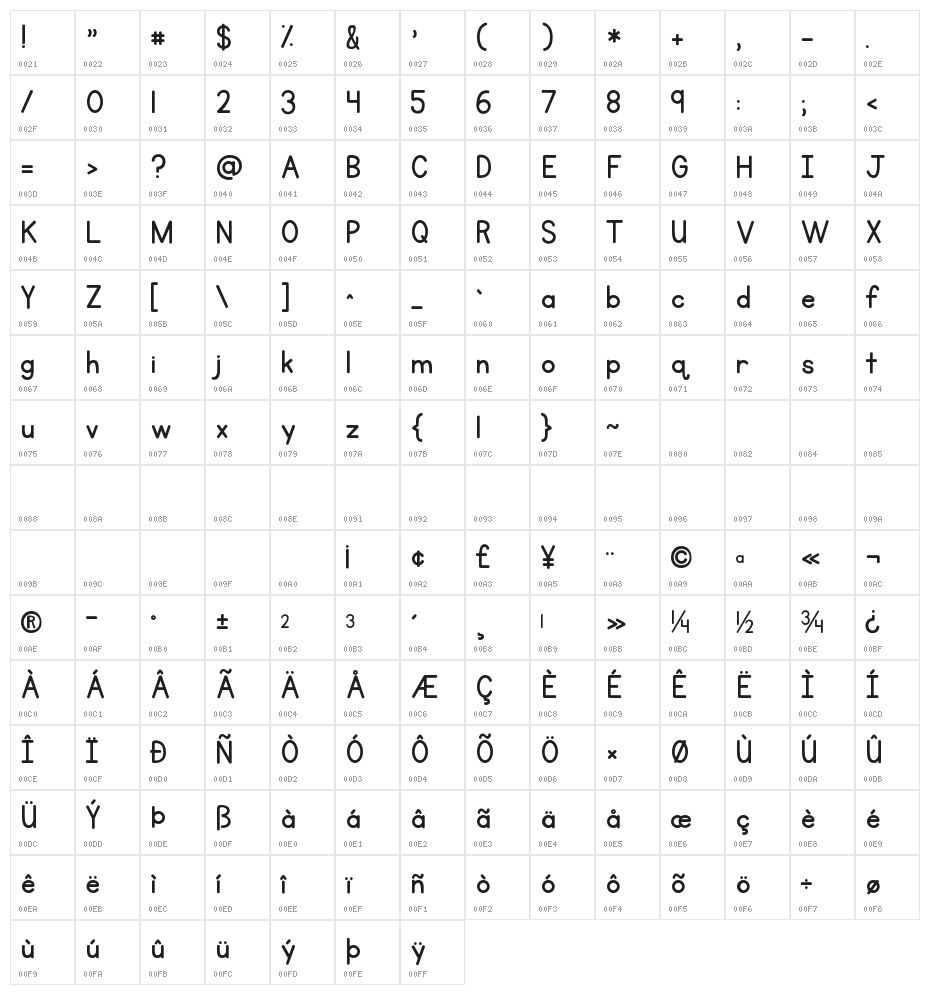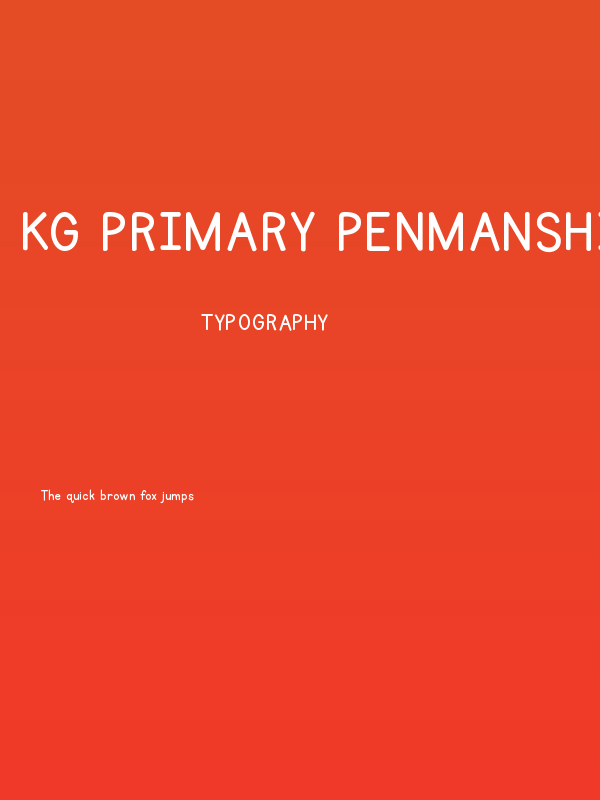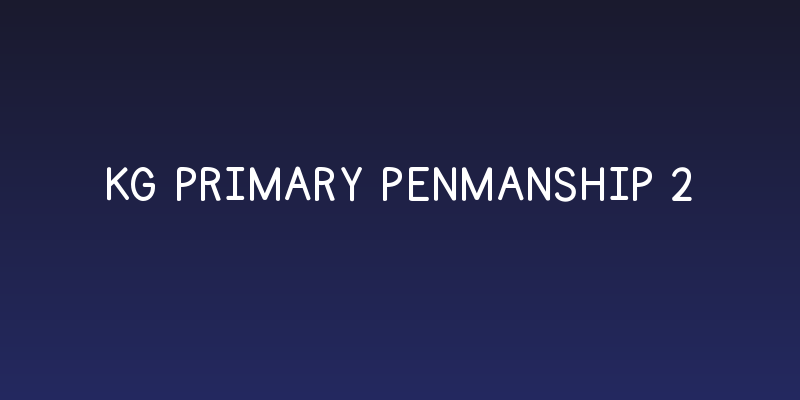
KG Primary Penmanship 2 Font
KG Primary Penmanship 2 Description
This font features a clean and rounded style, reminiscent of traditional penmanship taught in primary schools. The characters are uniformly shaped with smooth curves and consistent stroke widths, giving it a friendly and approachable appearance. The uppercase and lowercase letters maintain a balanced proportion, ensuring legibility and clarity. Numbers and special characters follow the same rounded aesthetic, making them easy to distinguish. The overall design is simple yet effective, suitable for educational materials or any project requiring a clear and inviting typeface.
| Use Case | Headlines, Body text, Educational materials |
| Proposed Projects | Ideal for educational materials, children's books, school branding, and playful designs. |